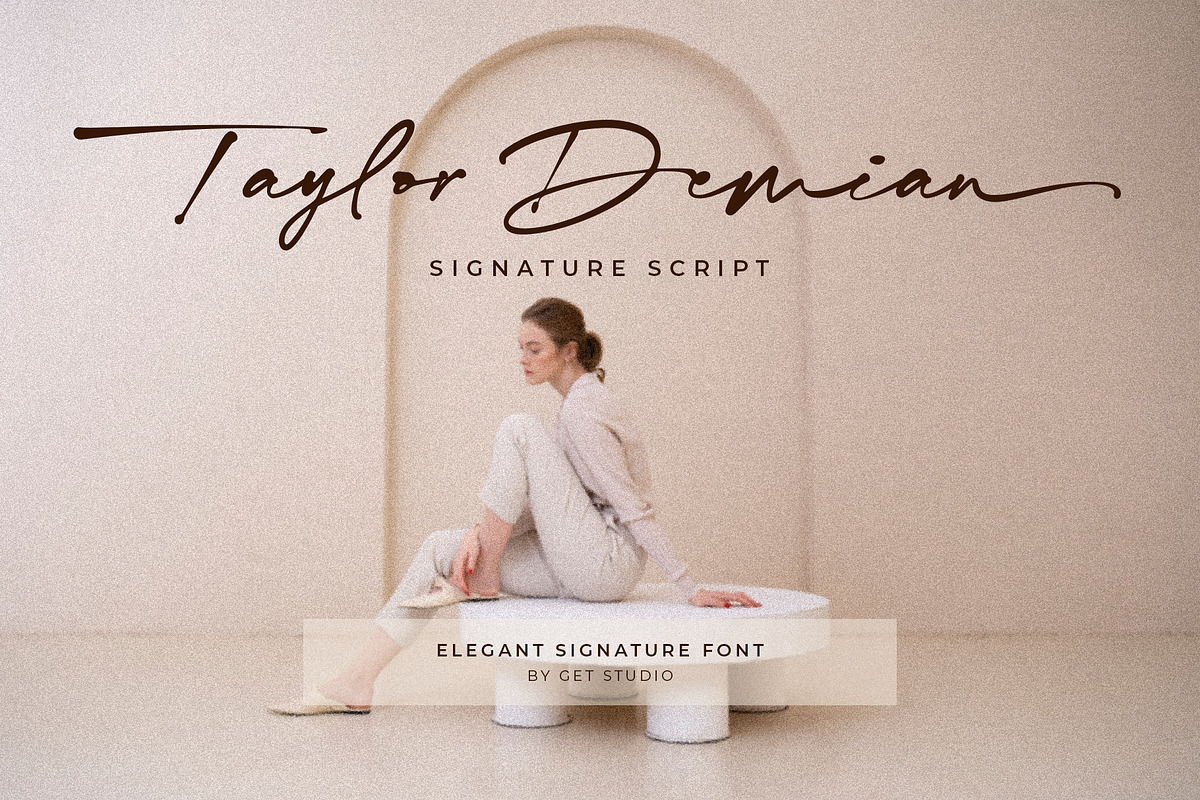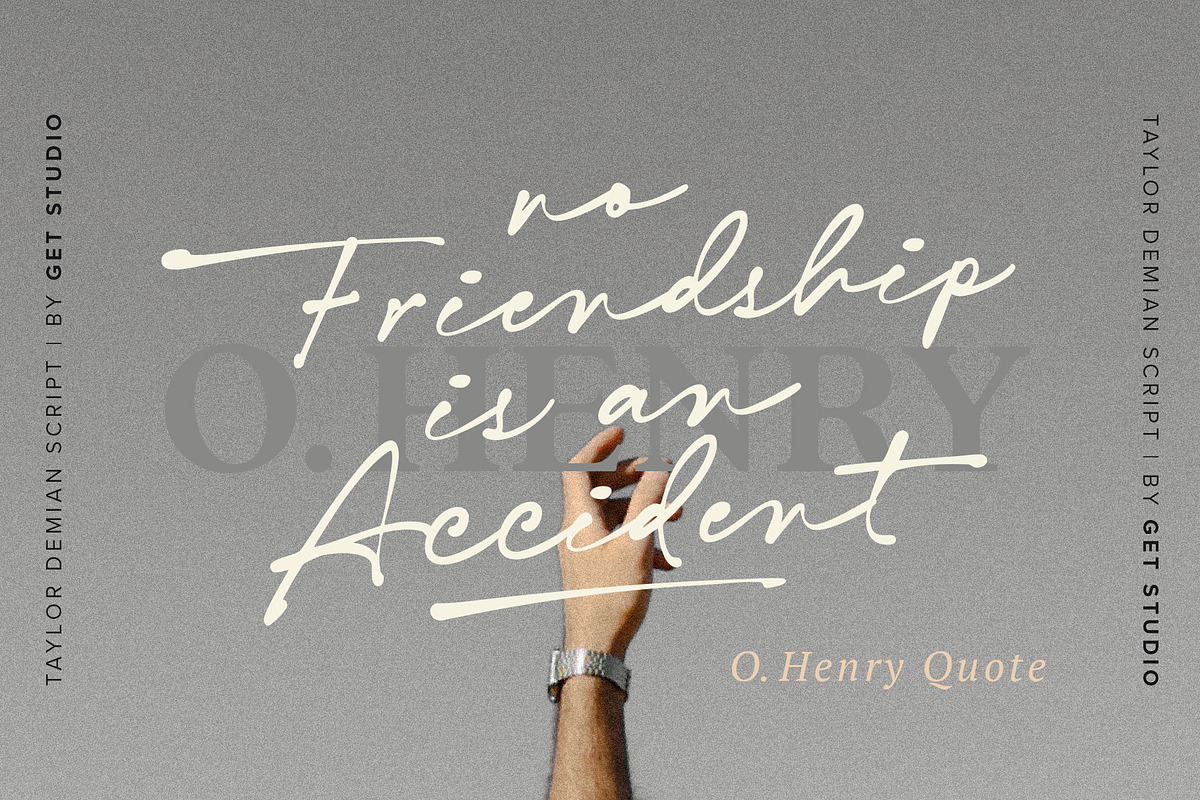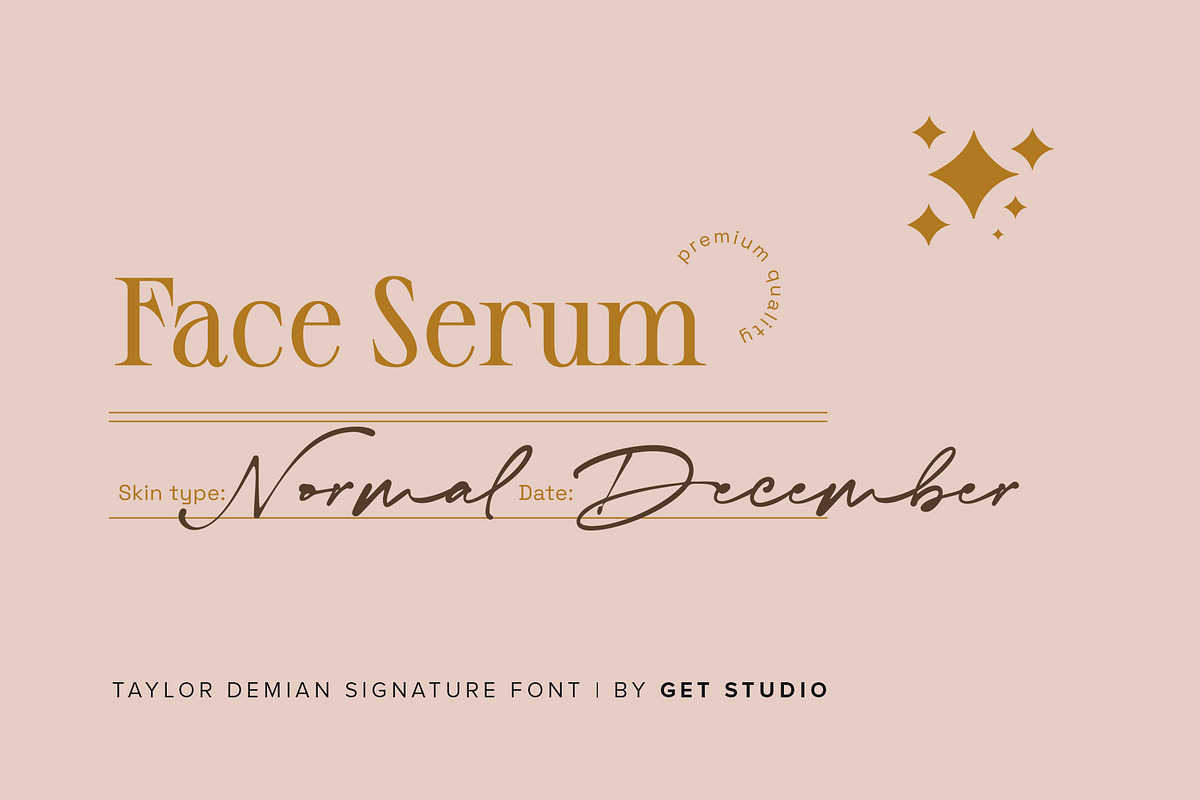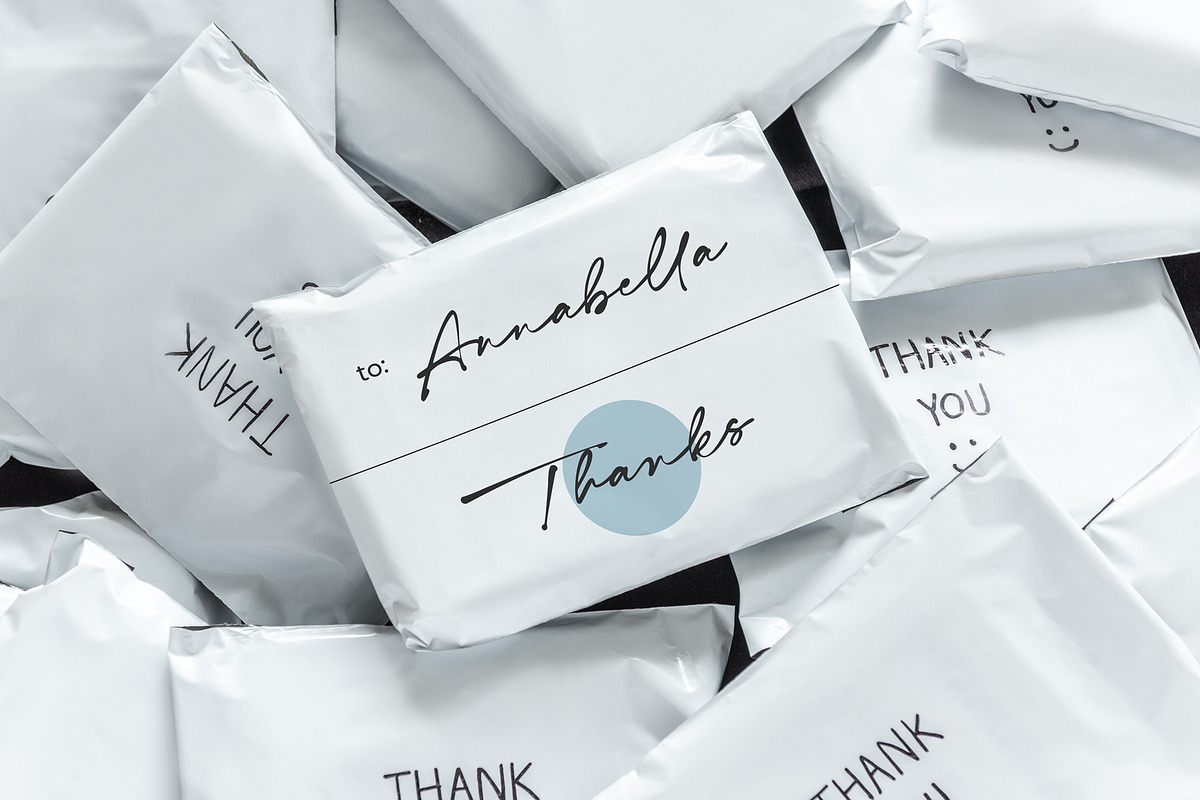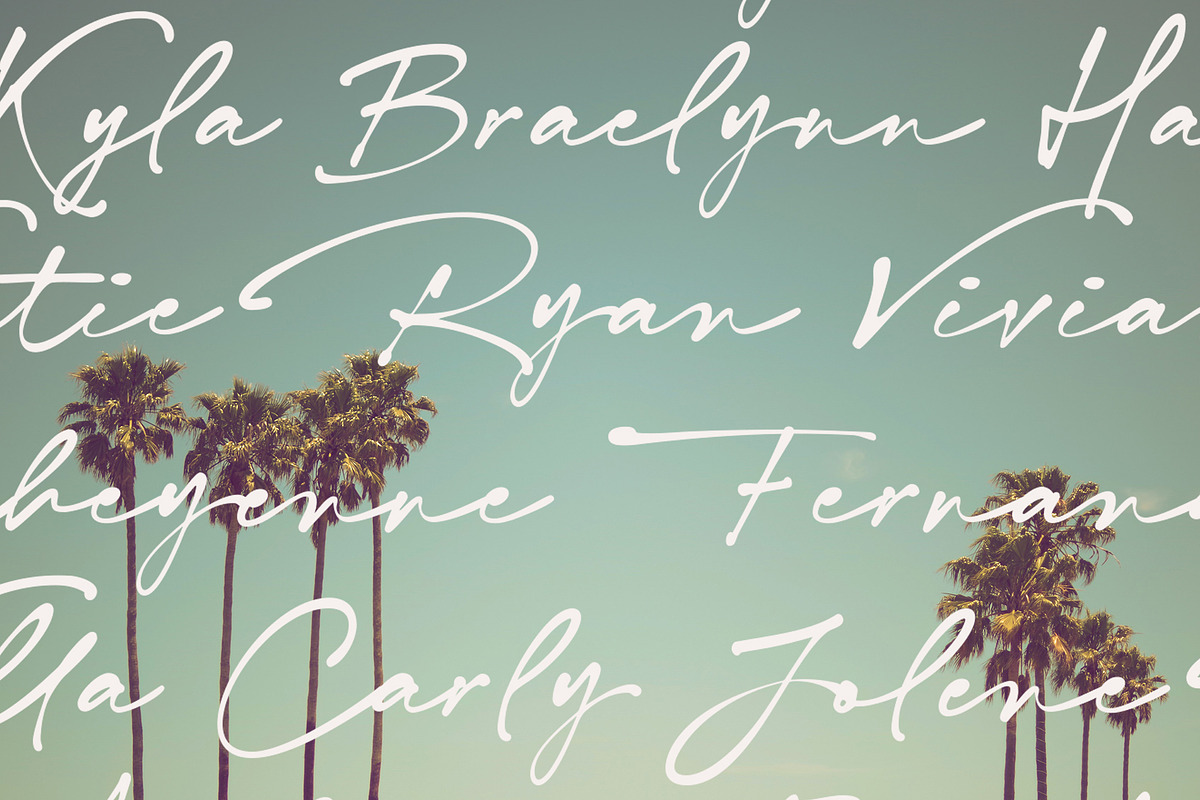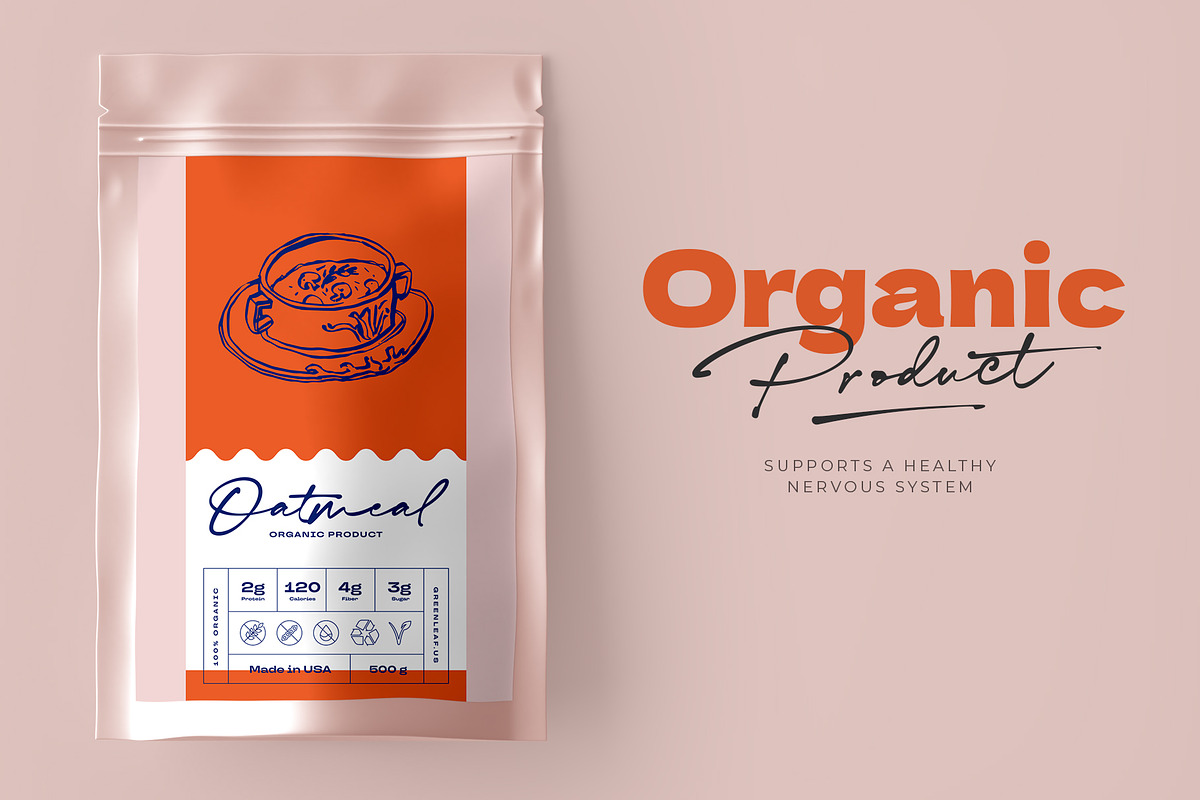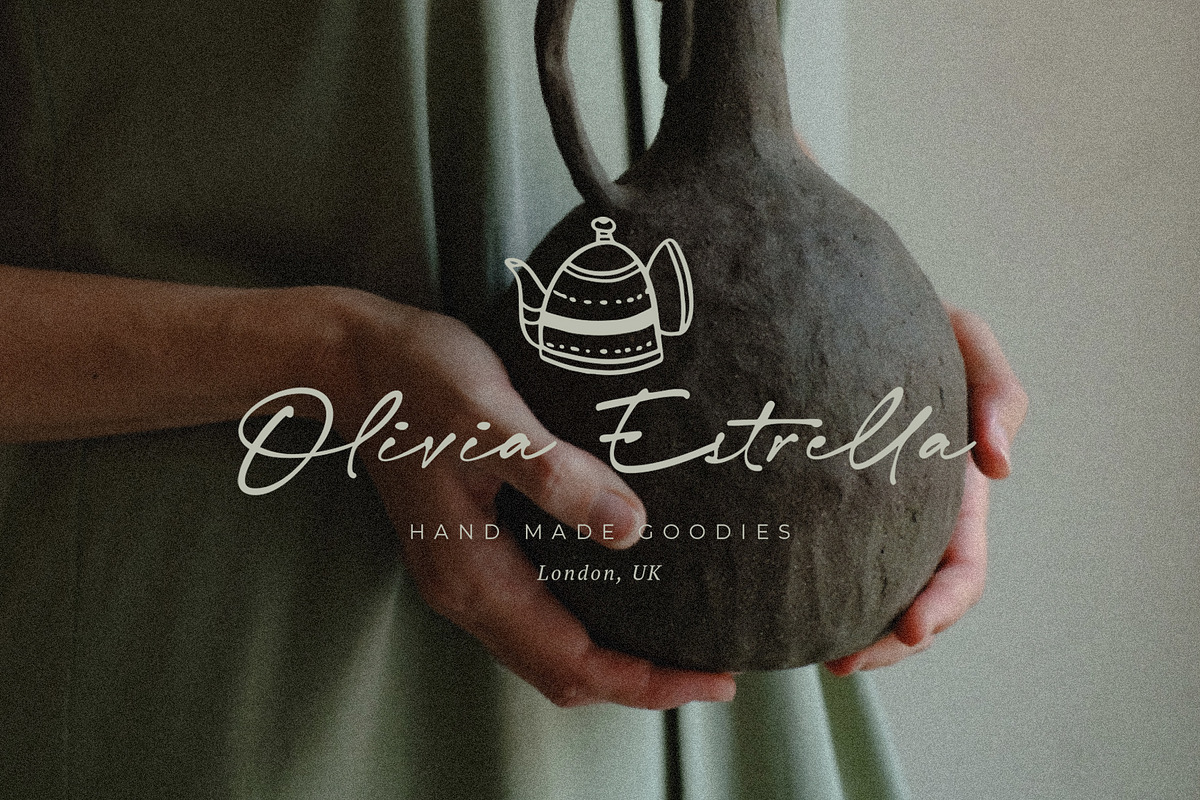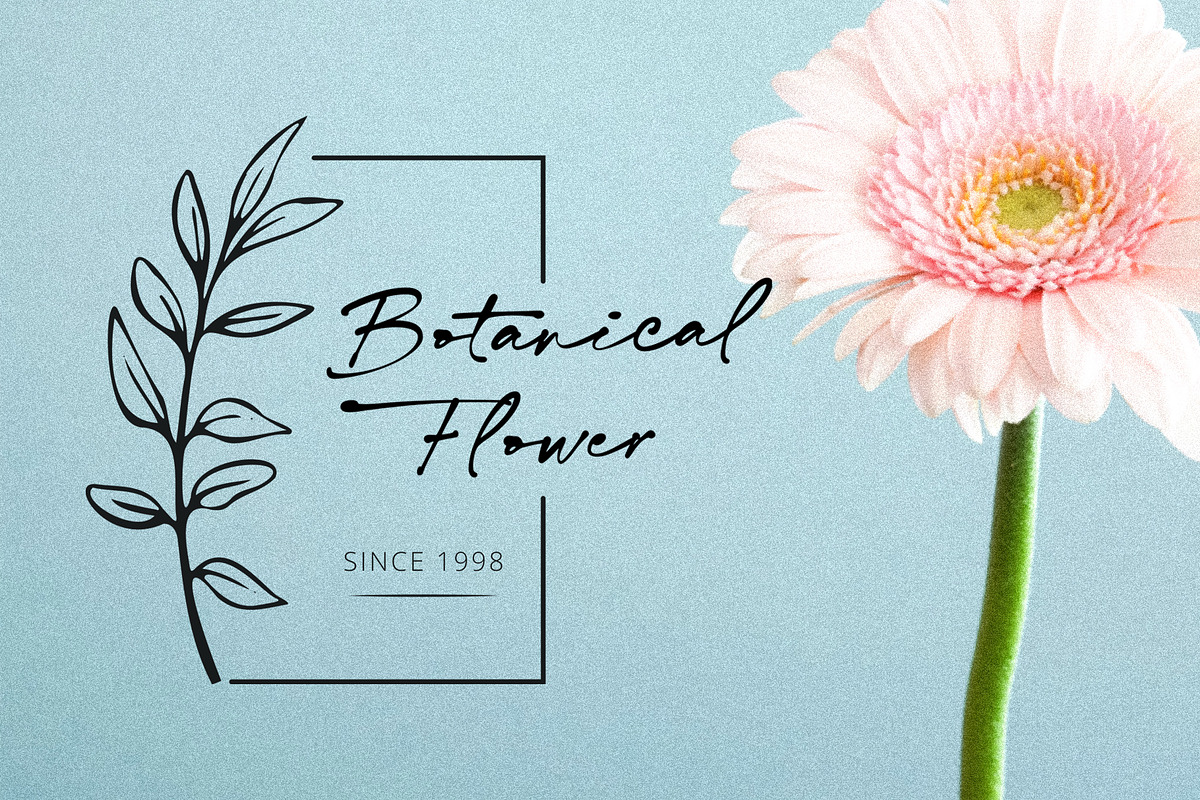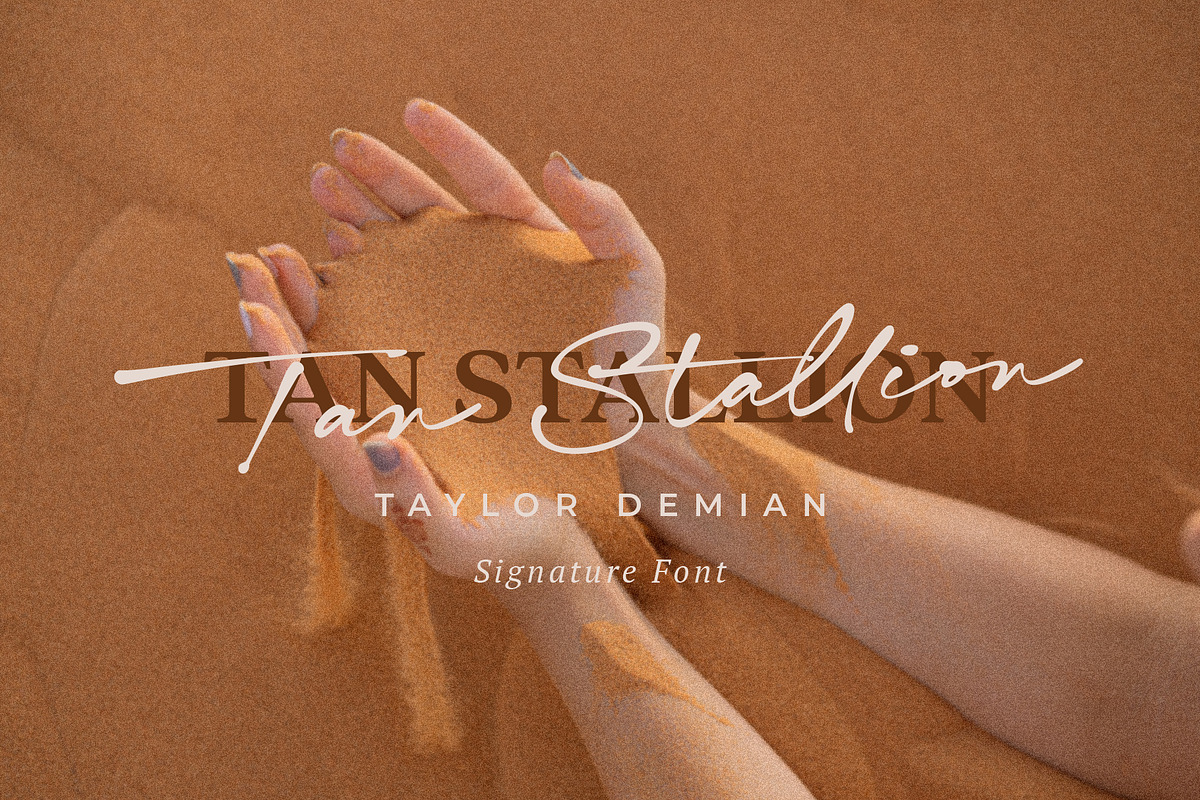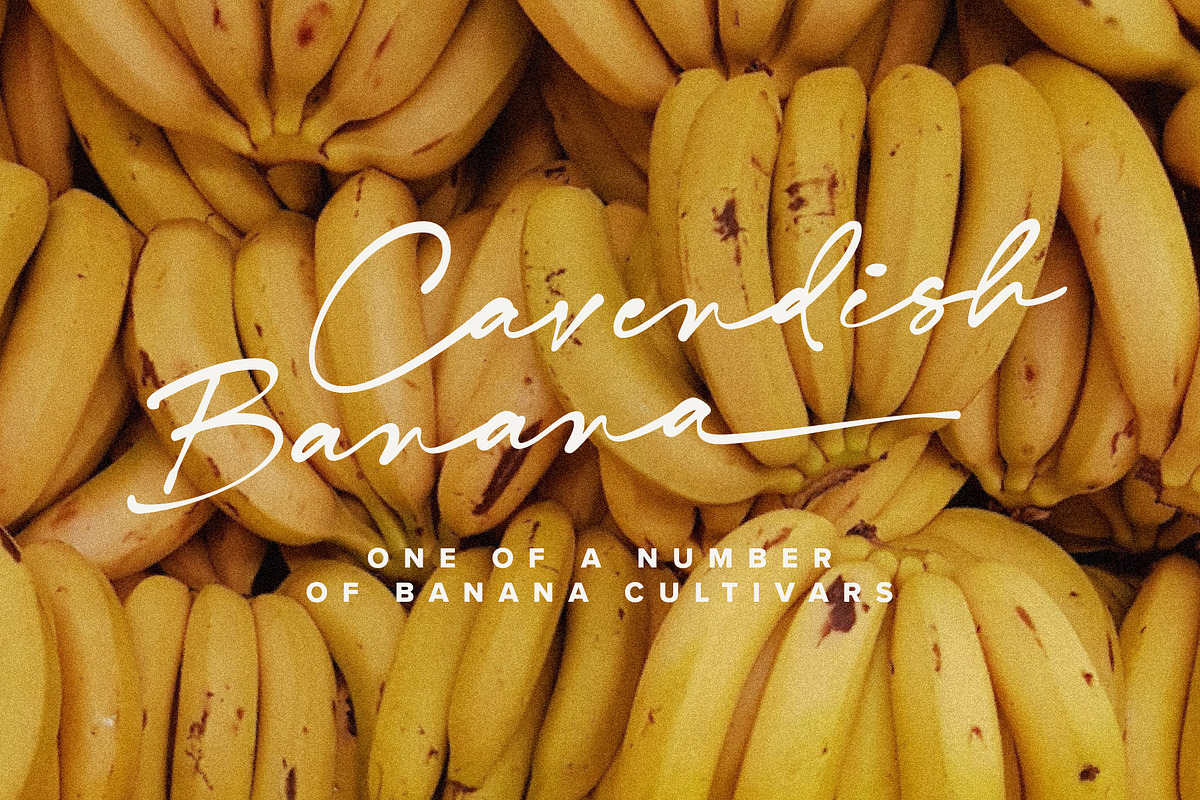
Taylor Demian - Signature Font
Introducing Taylor Demian Signature Font
This new script font embodies the essence of a natural signature style. Designed to convey elegance and organic handwriting, it effortlessly exudes a sense of graceful flow. Meticulously crafted, this font can be seamlessly incorporated into various contexts.
With its elegant signature style, natural impression, and clever ligature usage, this script font closely resembles authentic handwriting. It brings a personalized and aesthetically pleasing quality to your design projects.